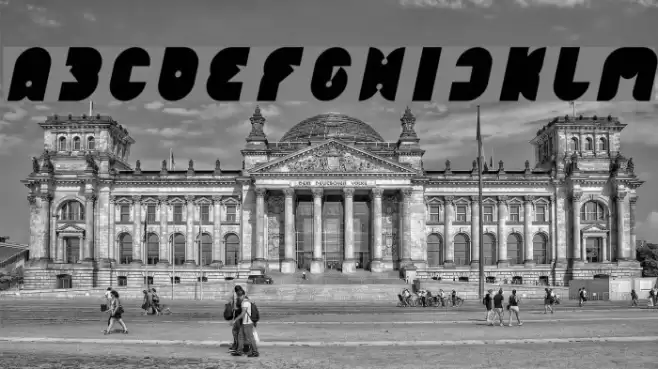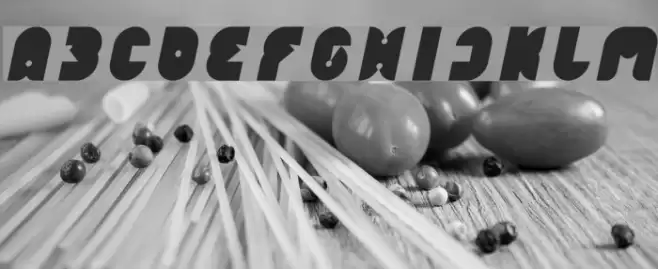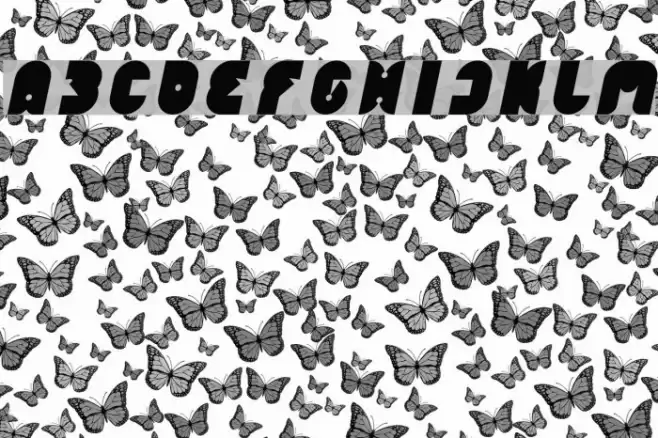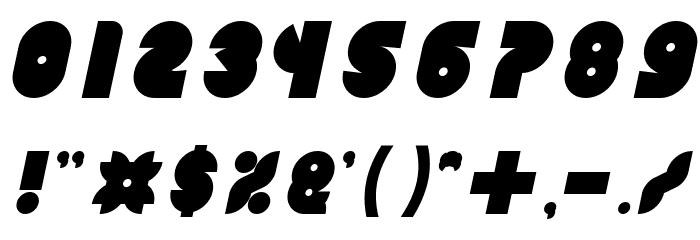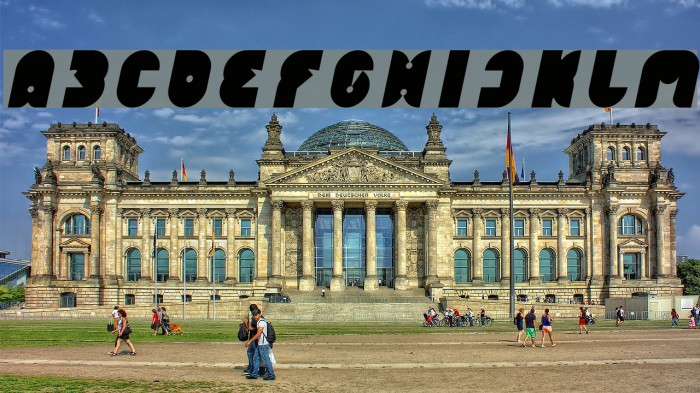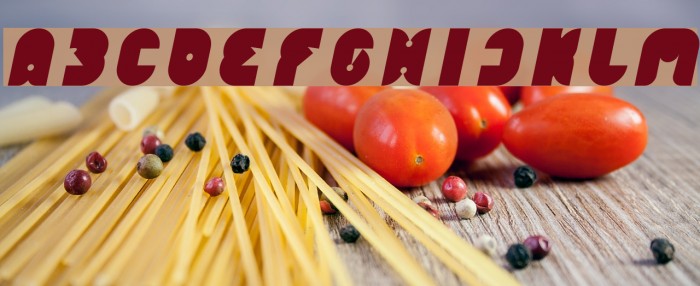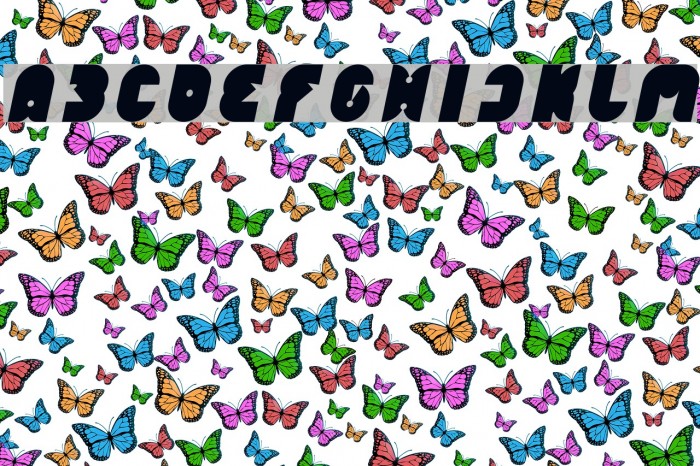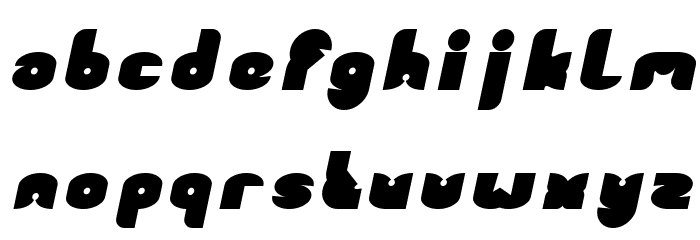
FUNNY SPORT Bold Italic Font
FUNNY SPORT Bold Italic Description
This bold and italic typeface features a playful and dynamic style, characterized by its thick, rounded forms and slanted orientation. The letters are designed with a sense of movement, making them appear lively and energetic. The font's bold weight ensures strong visibility and impact, while the italic slant adds a sense of speed and fluidity. The characters are tightly spaced, enhancing the compact and cohesive appearance. The font includes a full set of uppercase and lowercase letters, numbers, and a variety of special characters, making it versatile for different design needs.
A bold, italic typeface with playful, rounded forms and dynamic slant from Uncategorized fonts.
- Proposed Projects: Ideal for sports branding, playful posters, children's book covers, and dynamic advertising campaigns.
- Character Spacing: Tight
- Overall Style: Playful, Dynamic